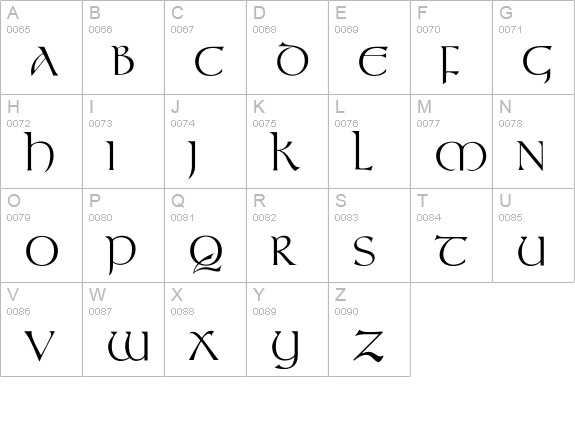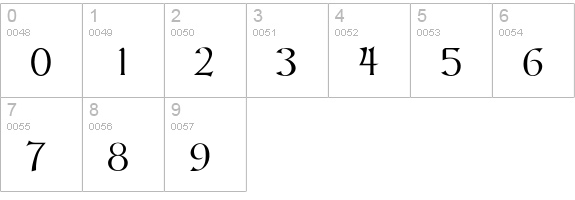
Rosslaire Font Details
Rosslaire font is a beautifully crafted typeface that exudes elegance and sophistication. With its graceful curves and stylish serifs, Rosslaire is perfect for adding a touch of class to your design projects. This versatile font is ideal for a wide range of applications, from branding and packaging to invitations and headlines. What sets Rosslaire apart is not only its stunning design but also the fact that it is available for free. Yes, you read that right - this exquisite font can be downloaded at no cost from FontsMarket.com. Whether you're a seasoned designer looking to add a new font to your collection or a beginner searching for the perfect typeface for your next project, Rosslaire is a fantastic choice that won't break the bank. Download Rosslaire font today and elevate your designs with its timeless appeal and effortless charm.